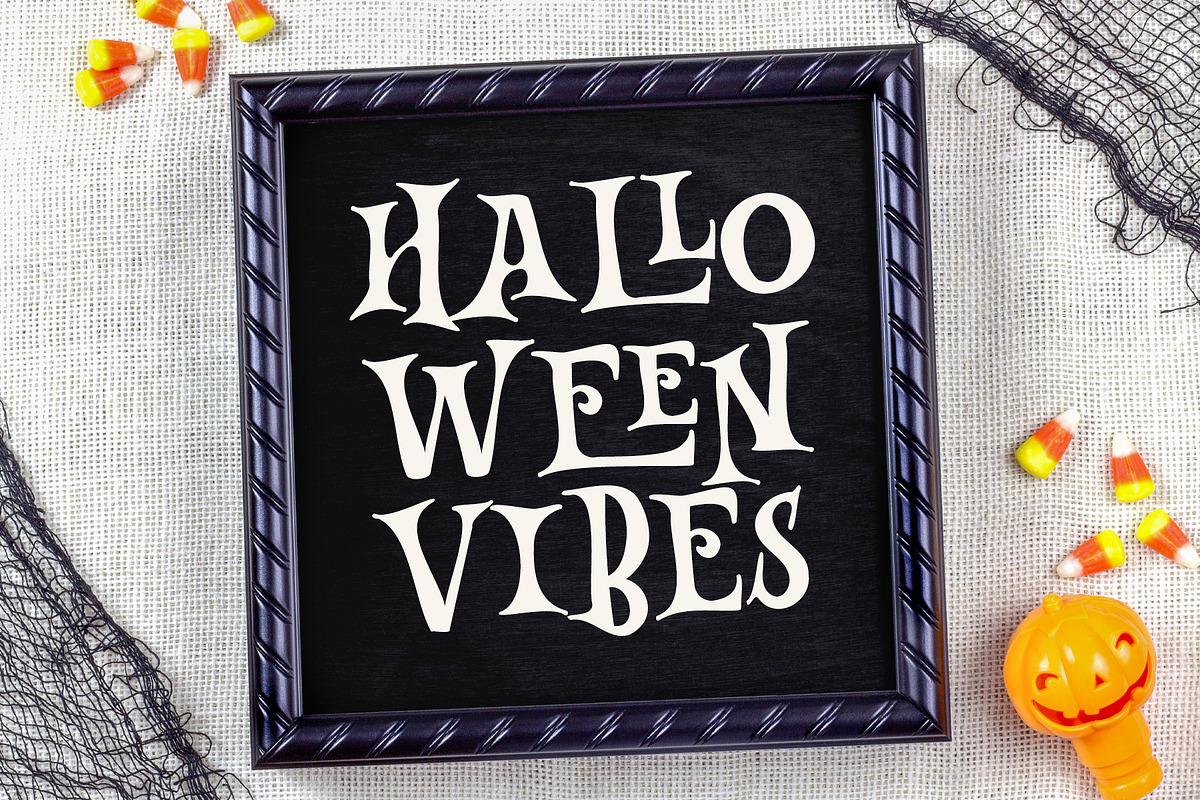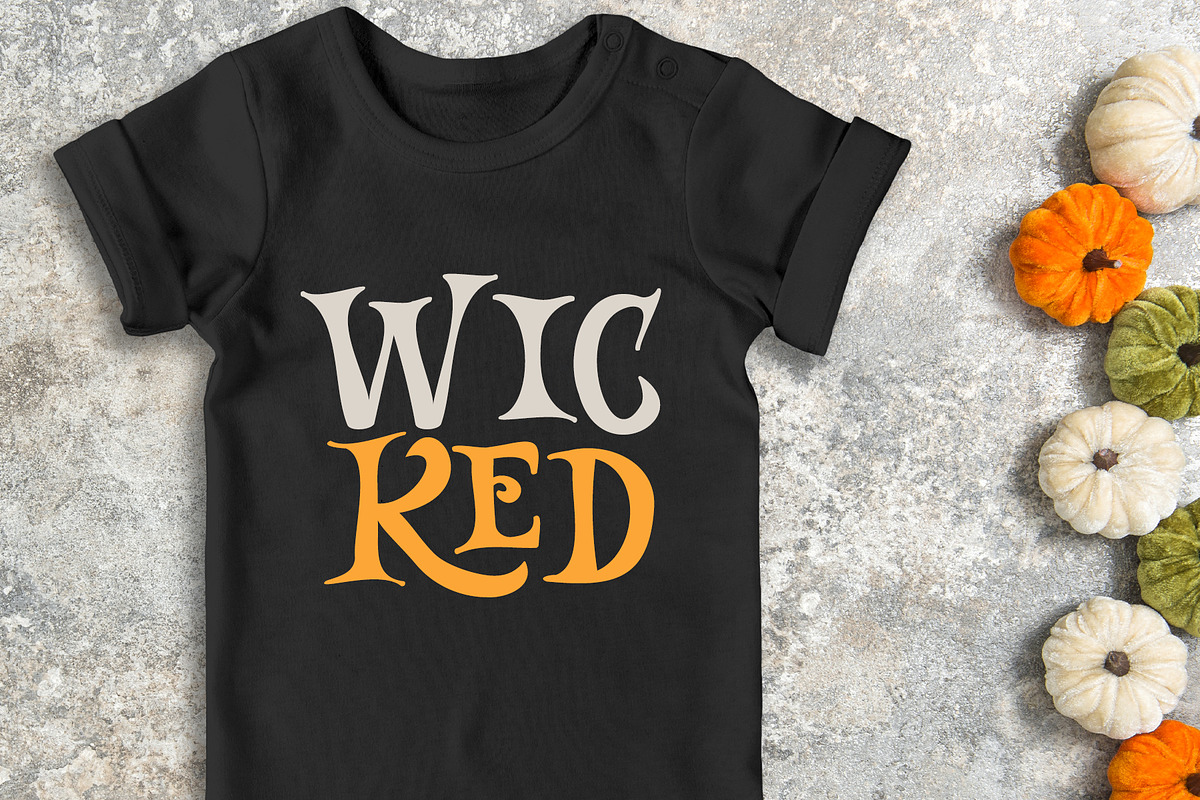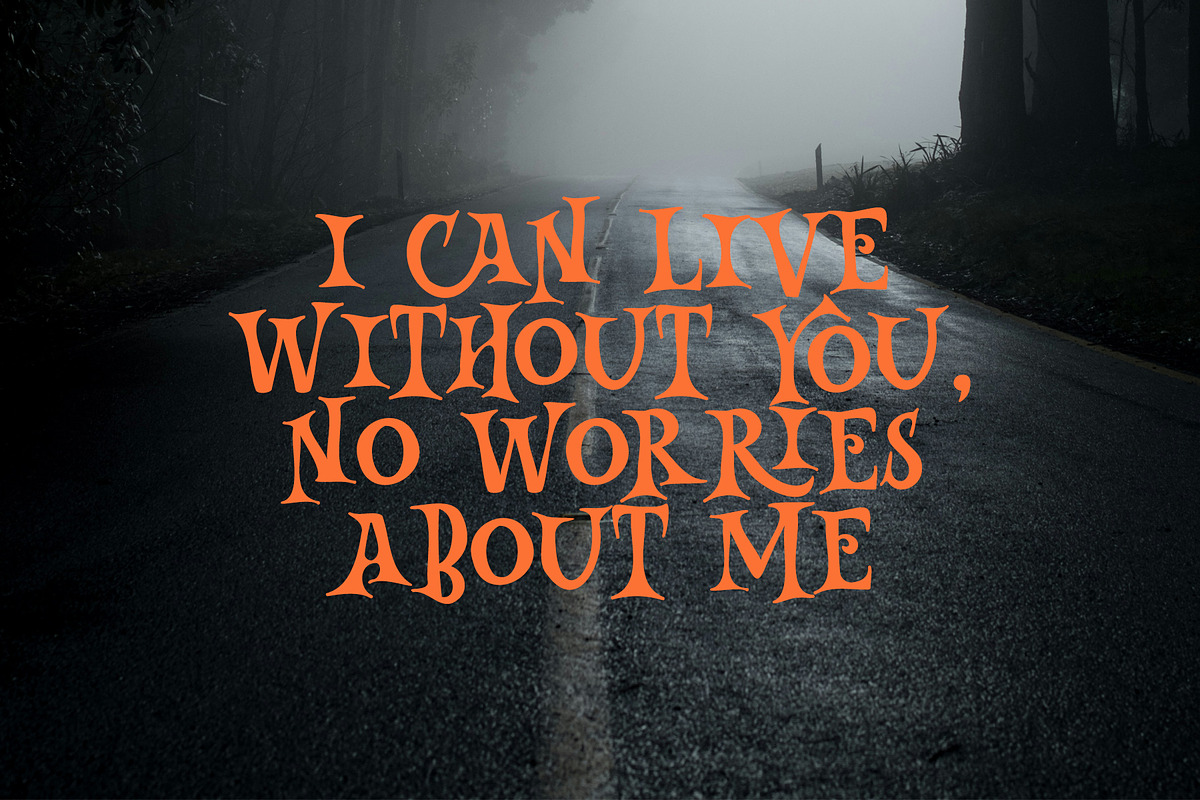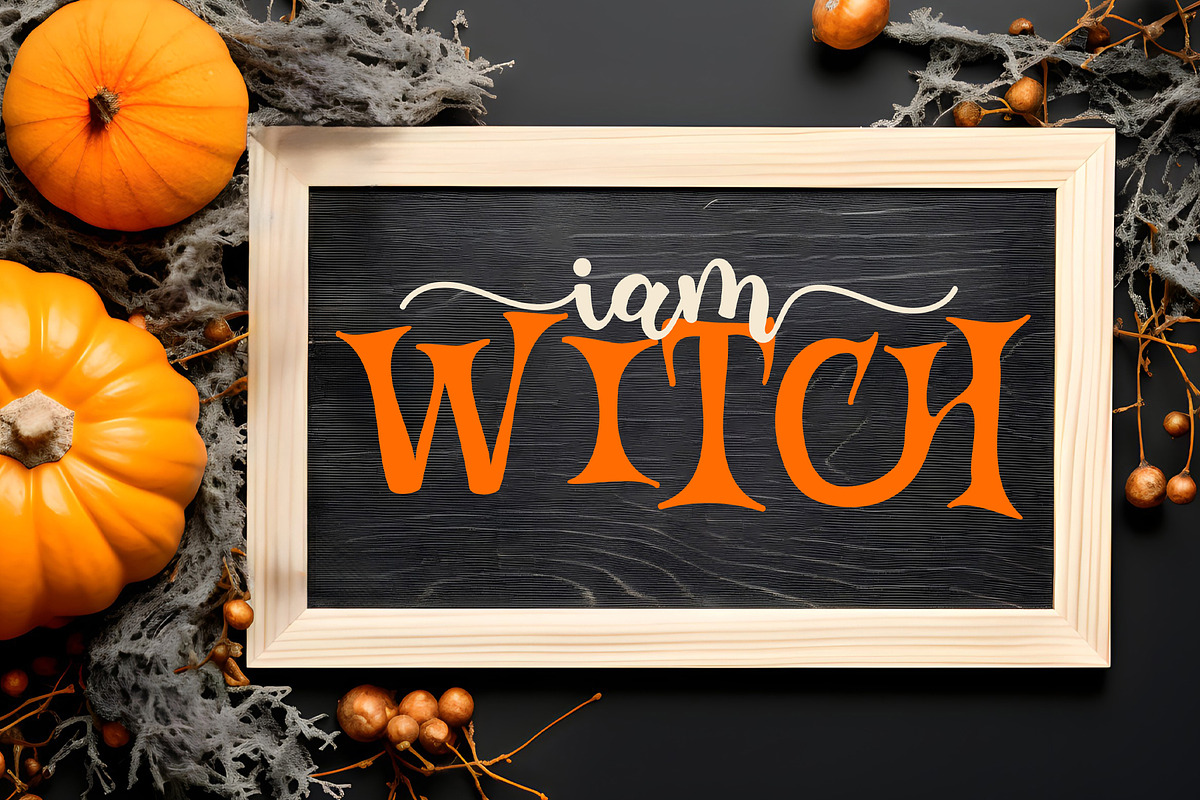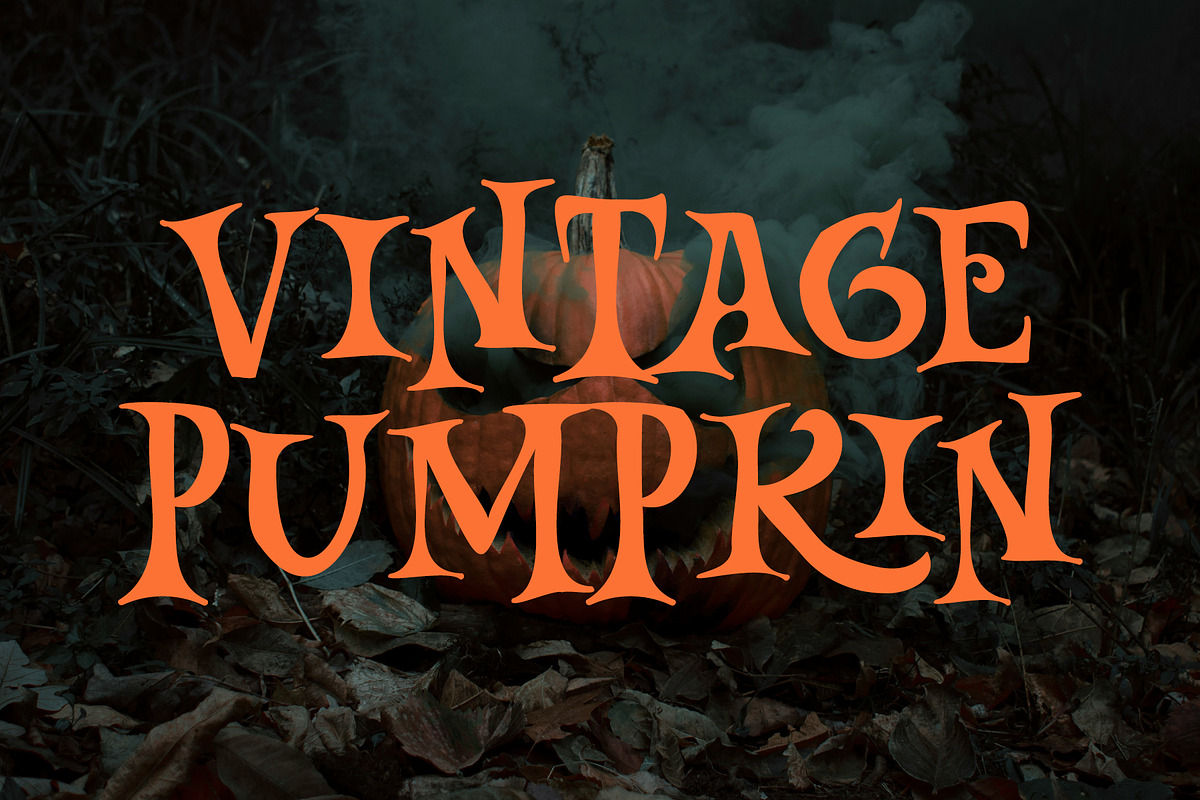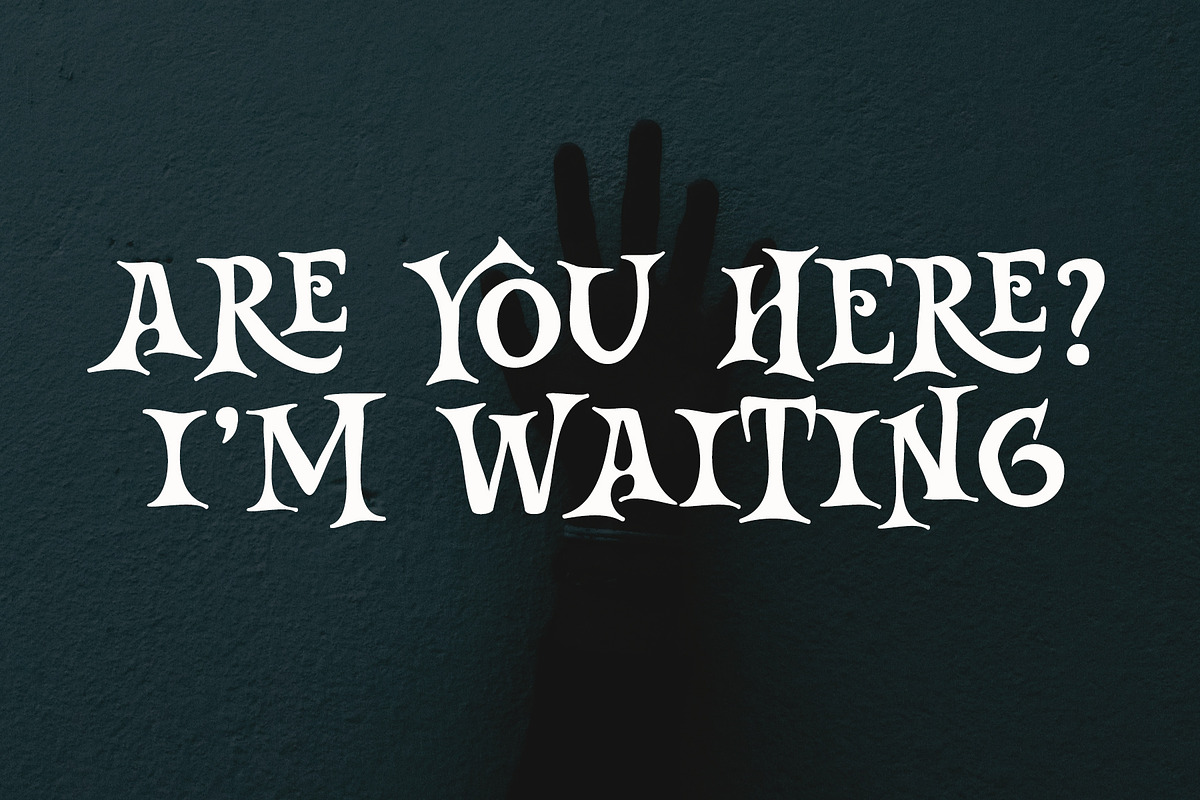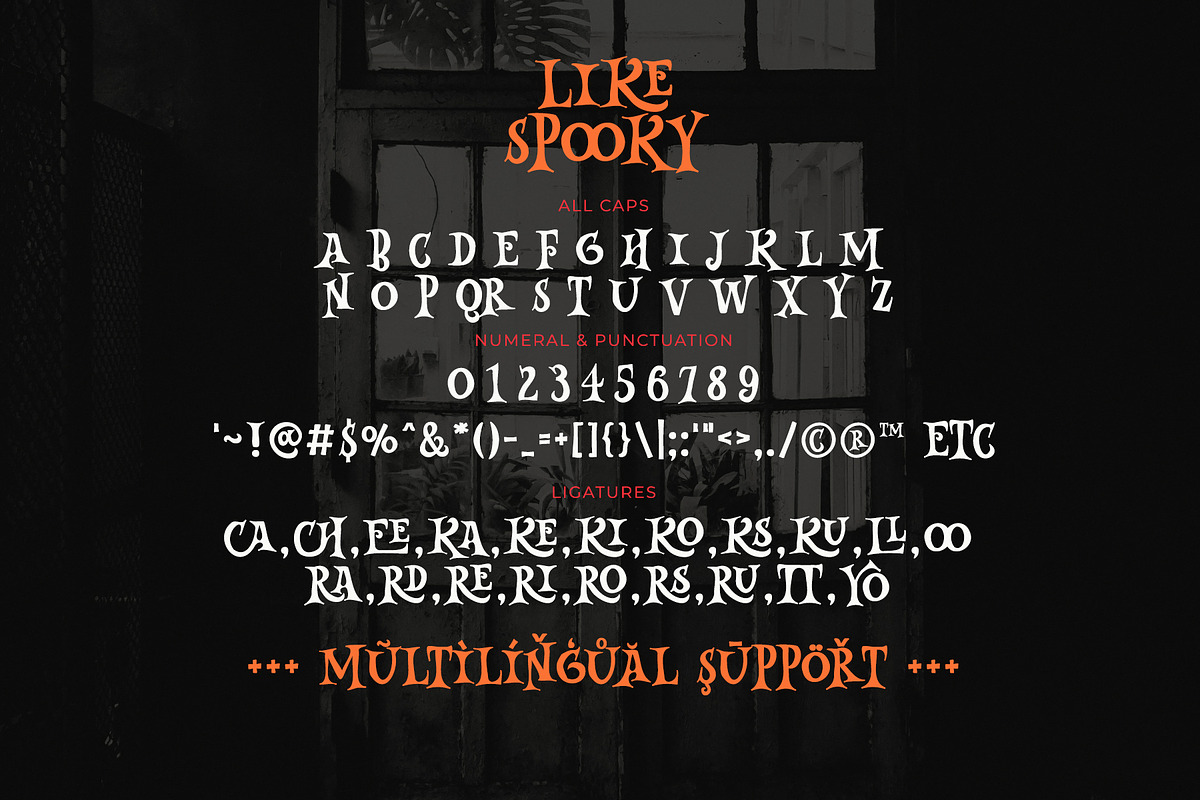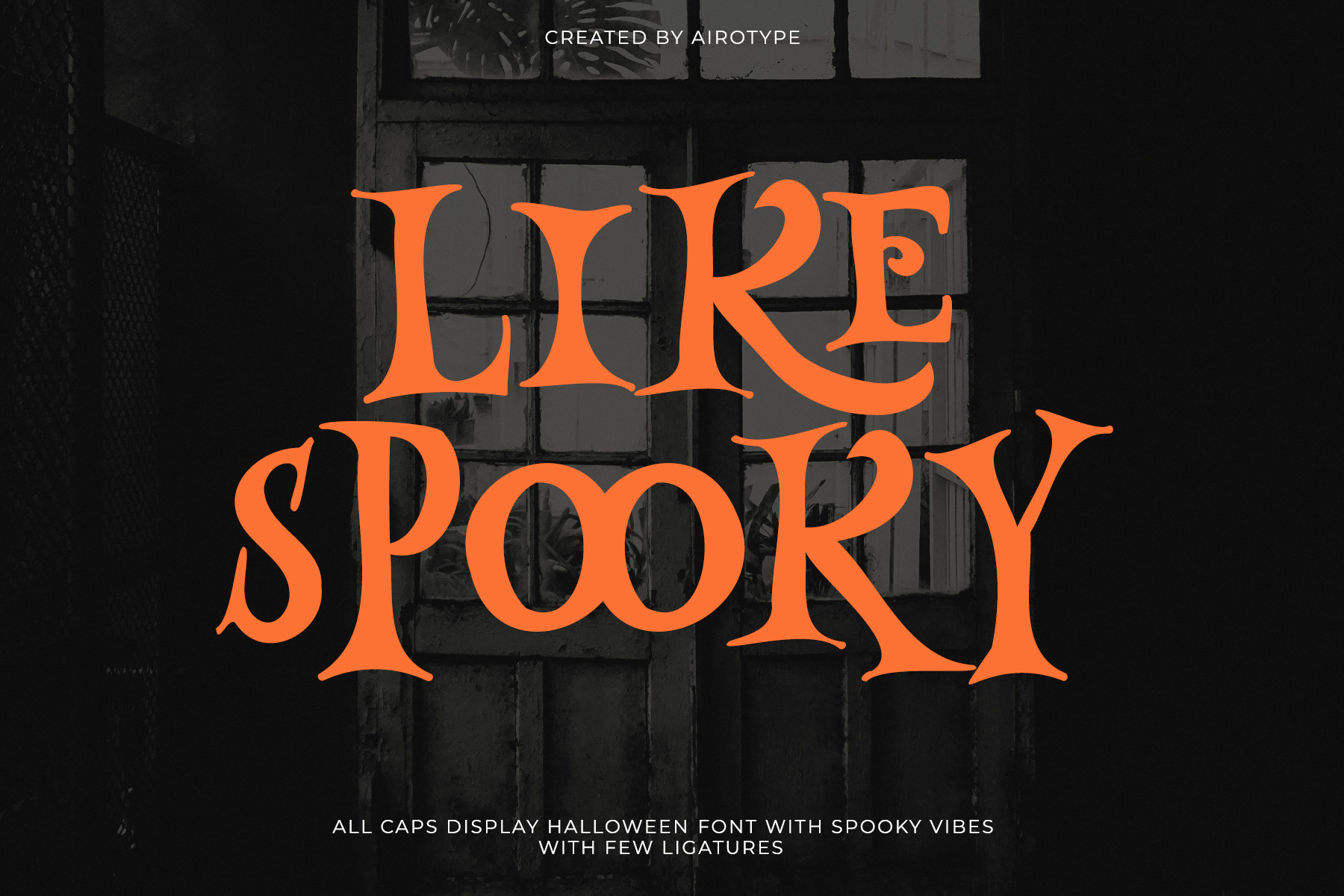
Like Spooky - Display Halloween Font
Like Spooky is display serif font with spooky vibes. This all caps font is has bouncy and scary vibes.
Like Spooky is perfect font for design that needs spooky vibes, such as Halloween, t-shirt, crafting, stickers, logo, and many more.
- All Caps (with some ligatures)
- Most Multilingual Accent